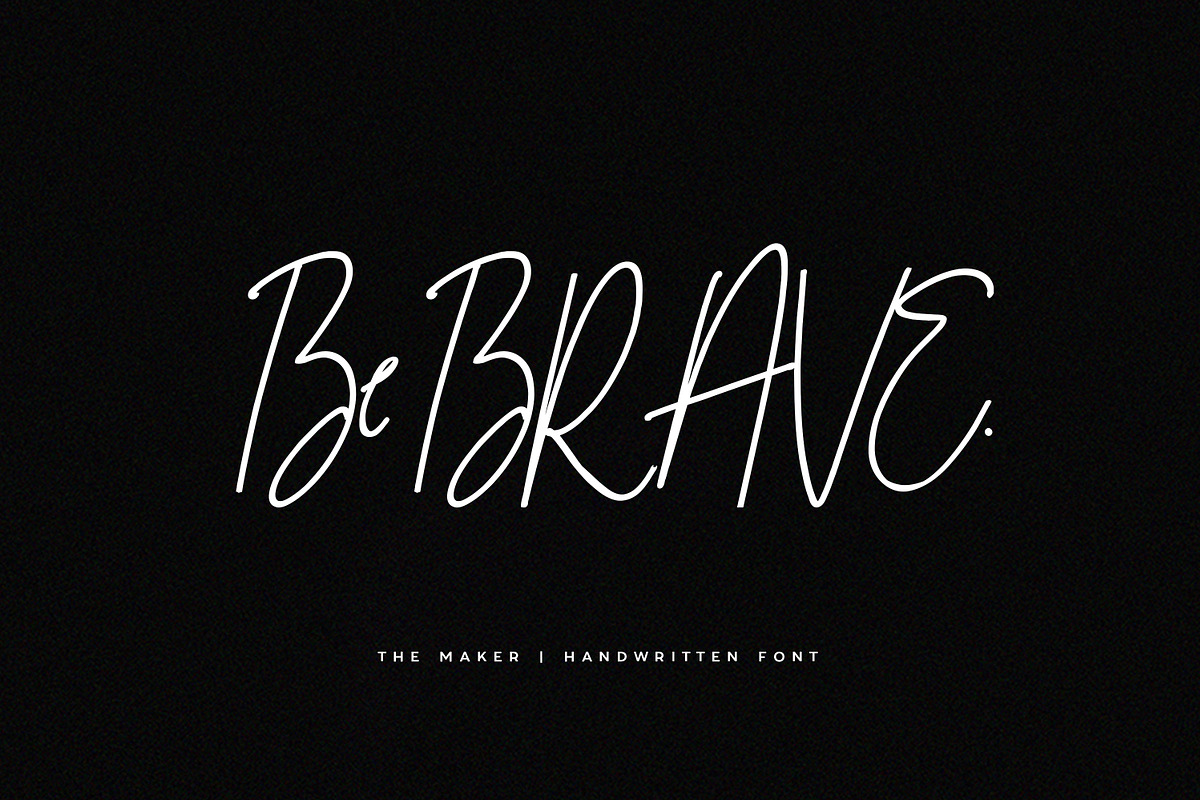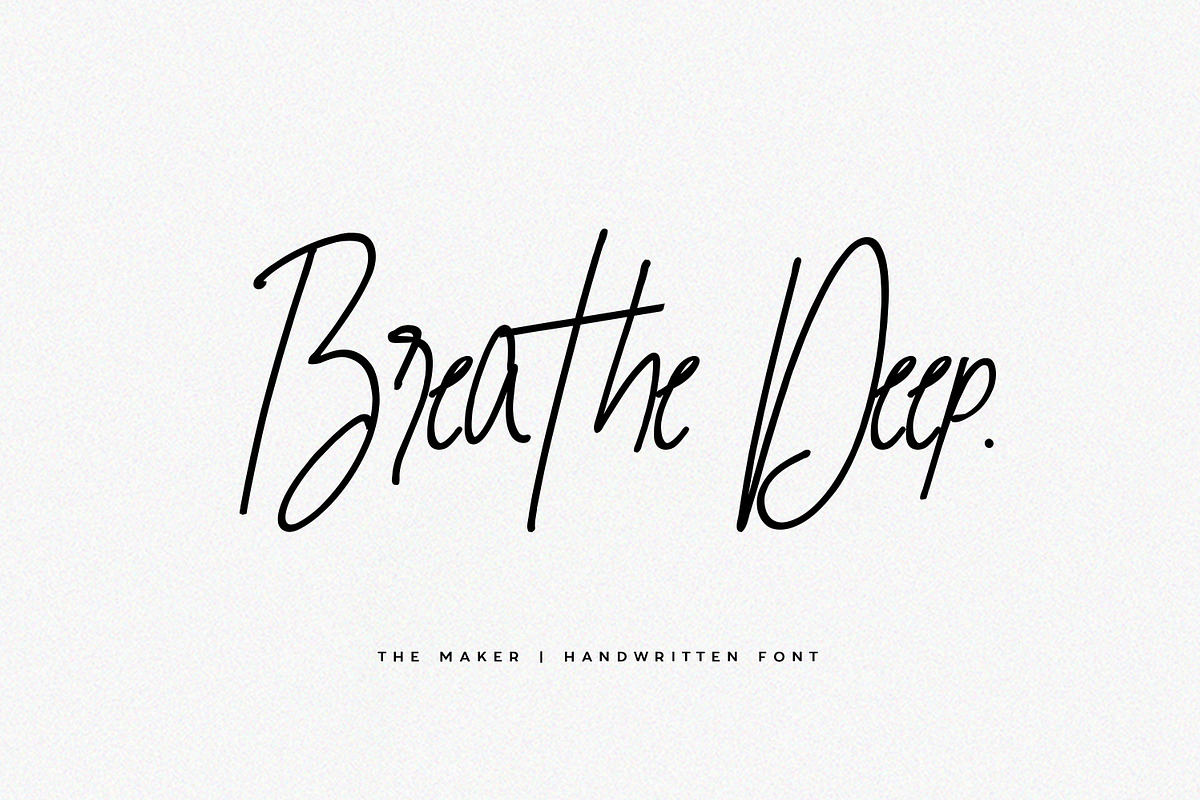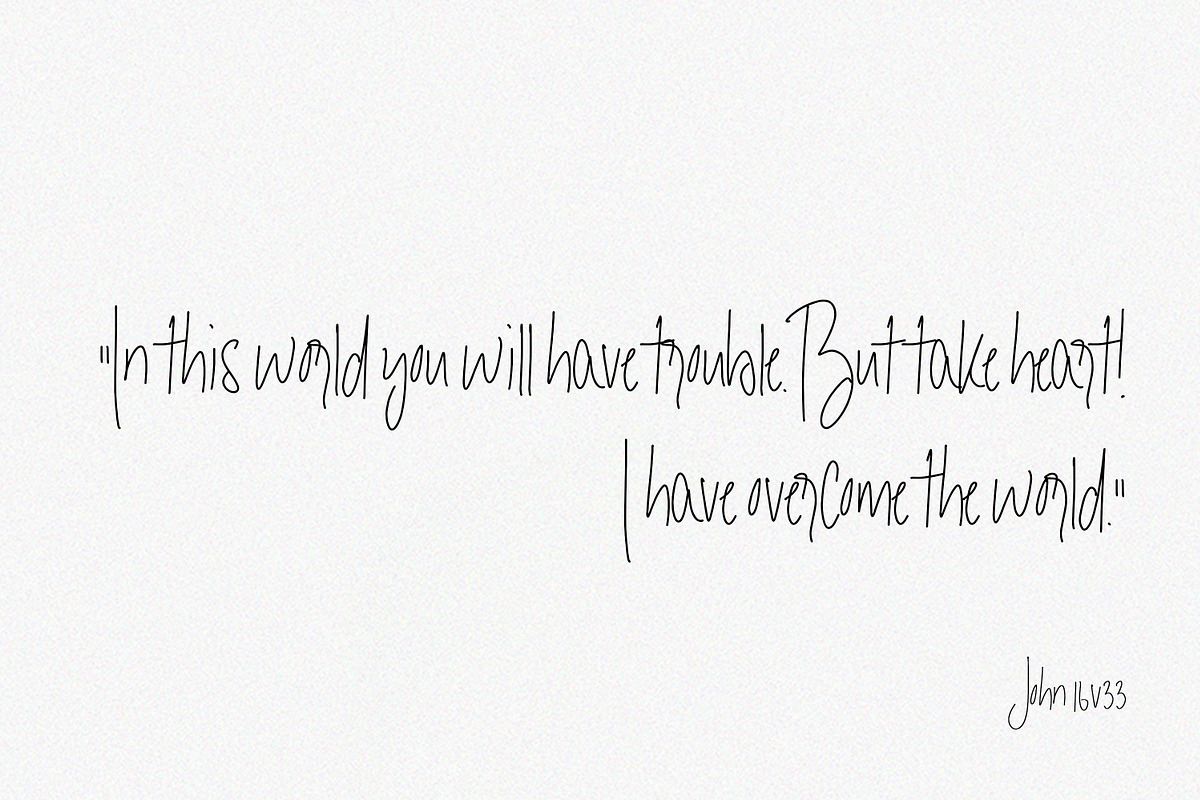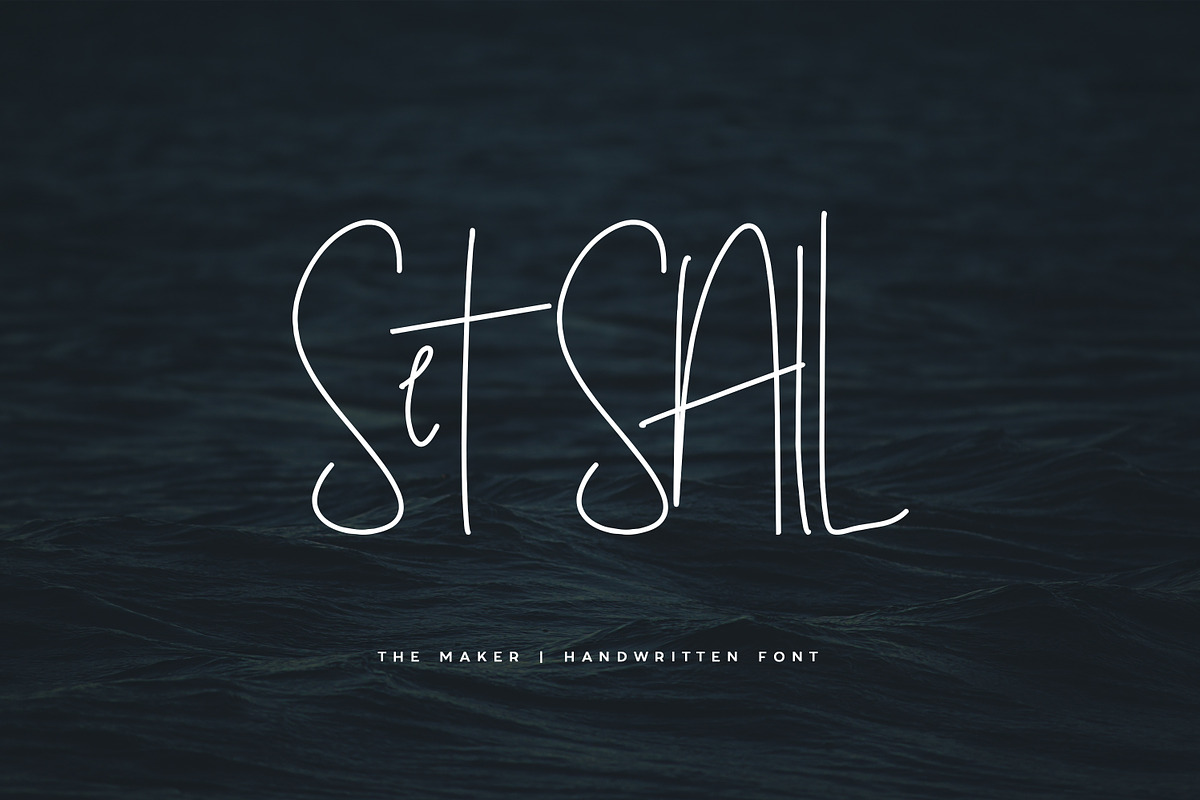
The Maker | Handwritten Font
Artsy and elegant, The Maker is a clean handwritten font, capable of adding both quirks and class to your work.
For the blessed and the busy.
The Maker | Handwritten Font by Heart + Soul Studios fits naturally into Branding, posters, packaging, typography.